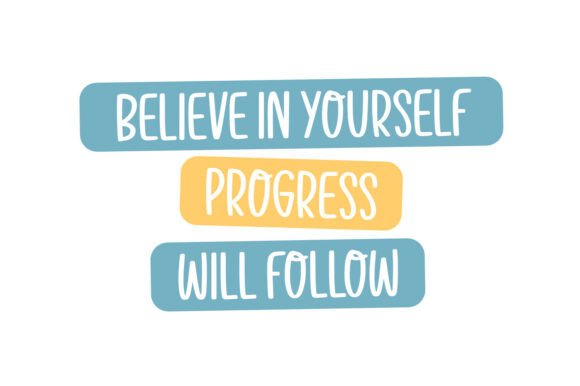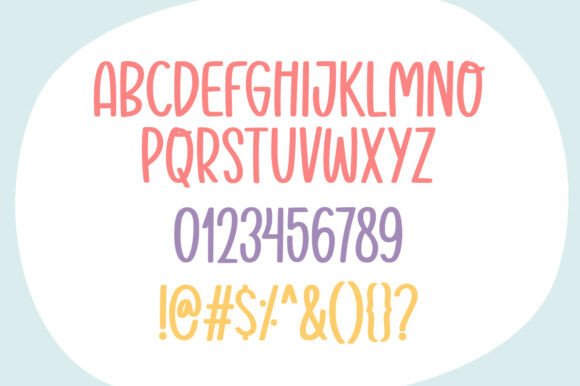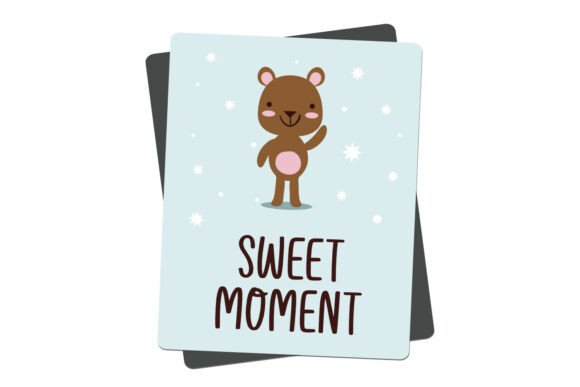
Introduction to Colcato Skied Font
Introducing Colcato Skied, an endearing handwritten display typeface that spills over with vivacious hues and playful penmanship.
It’s a delightful blend of fun-filled strokes that effortlessly radiate joyous vibes Ideal for infusing a dash of cheer in children’s projects, boosting the appeal of branding initiatives, or adding an inviting allure to posters and stickers.
Key Features of Colcato Skied Font
Why Choose Colcato Skied Font?
Colcato Skied Font offers exceptional quality and versatility, making it a valuable addition to your design toolkit. Whether you’re creating for personal projects or commercial use, Colcato Skied Font delivers professional results.